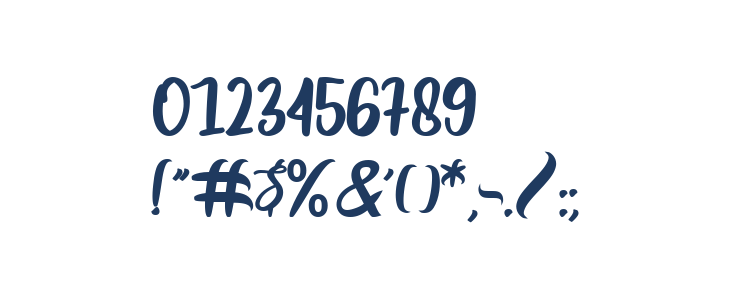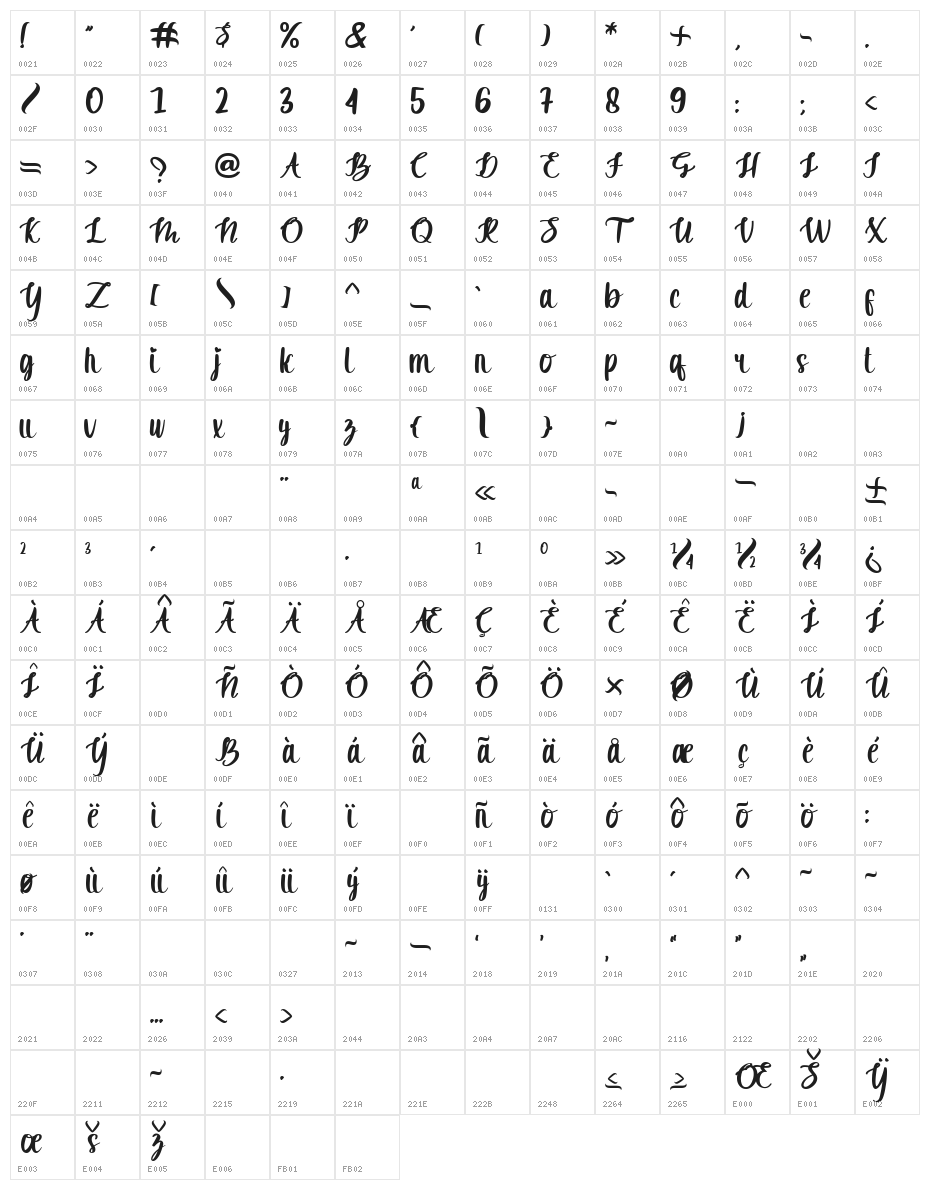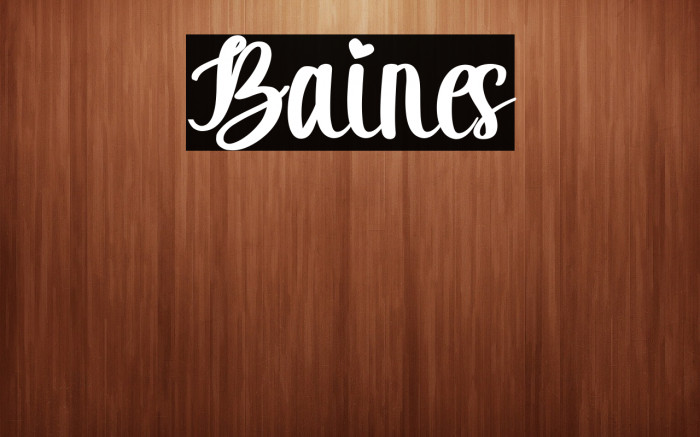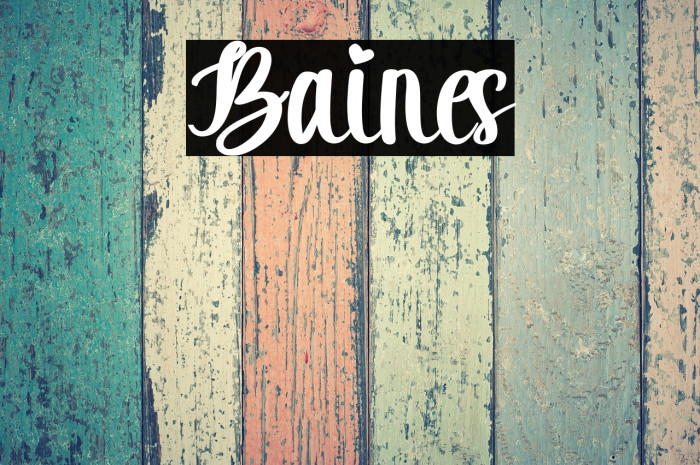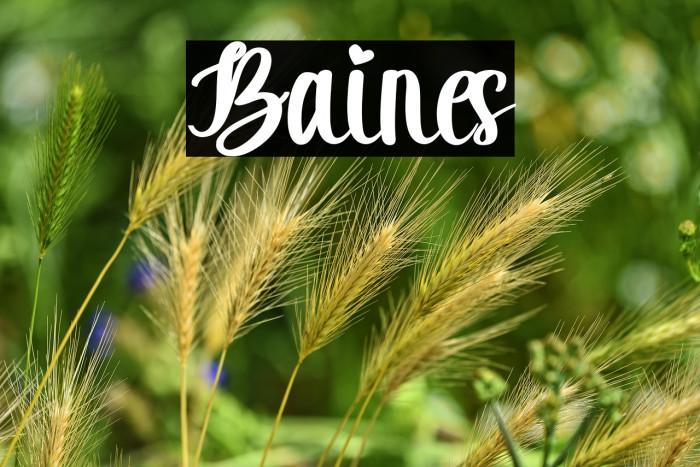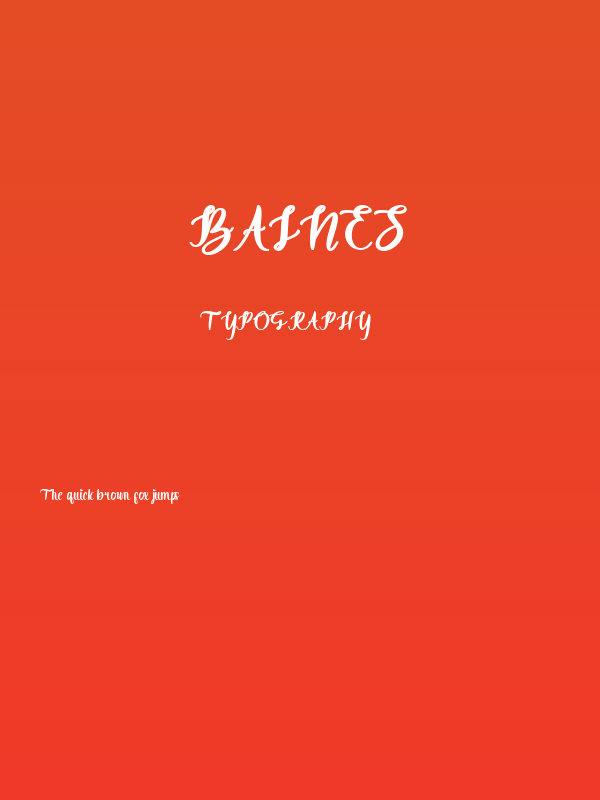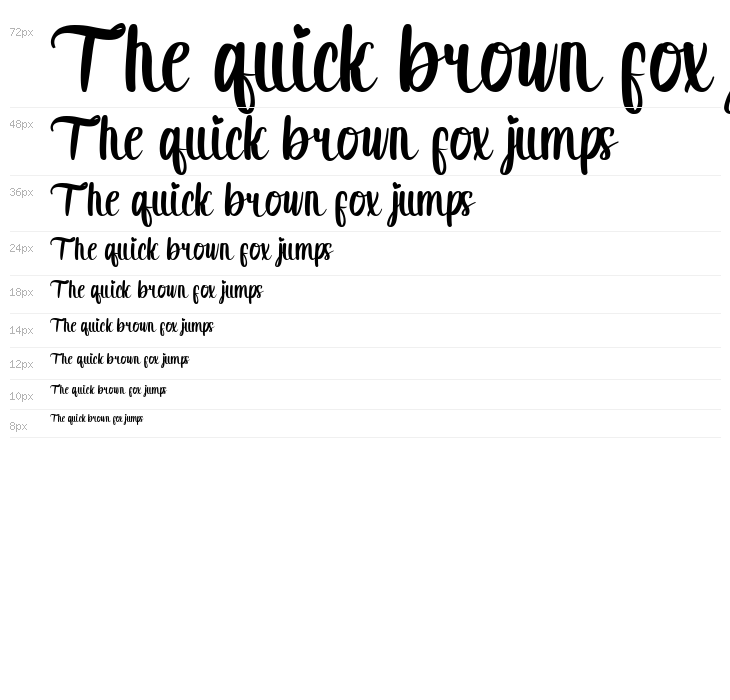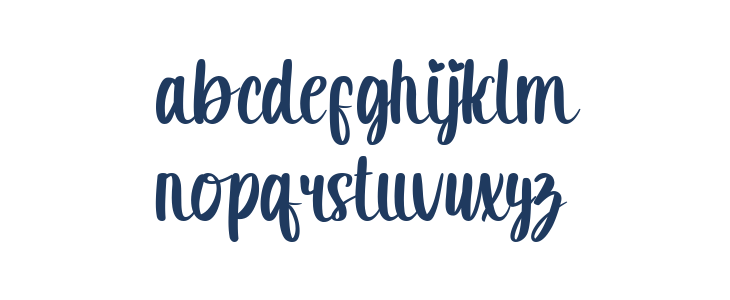
This font features a bold, flowing script style that combines elegance with a touch of playfulness. The uppercase letters are characterized by their sweeping curves and fluid connections, creating a sense of movement and grace. The lowercase letters maintain this fluidity, with some characters exhibiting unique loops and flourishes that add personality. The numerals are consistent with the overall style, offering a harmonious blend of curves and bold strokes. Special characters are thoughtfully designed to match the script's aesthetic, ensuring a cohesive look across all text elements. This font's boldness and dynamic style make it suitable for a variety of creative applications.
| Use Case | Logos, Headlines, Invitations |
| Proposed Projects | Ideal for wedding invitations, branding, greeting cards, and creative posters. |